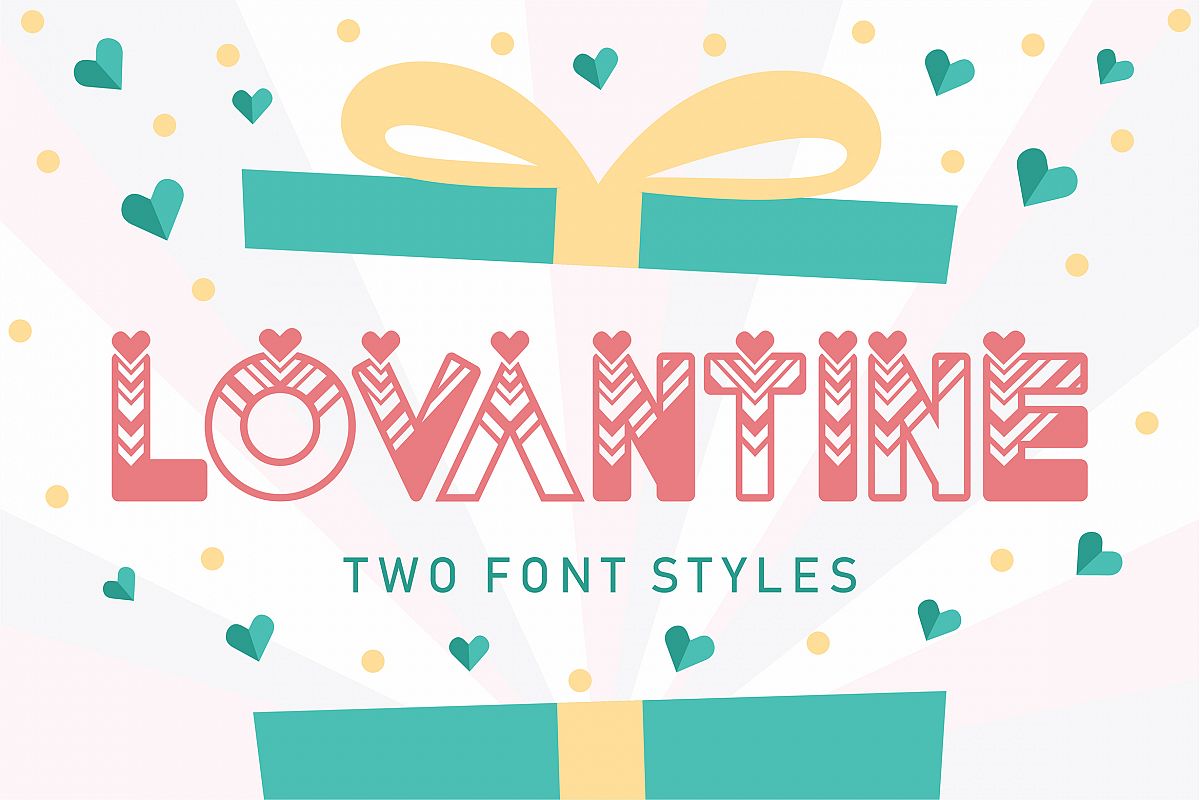
Lovantine
The Lovantine is a beautiful decorative font. It includes unique letters with decorative hearts on each letter. It has an elegant style and includes two variations; regular and black.